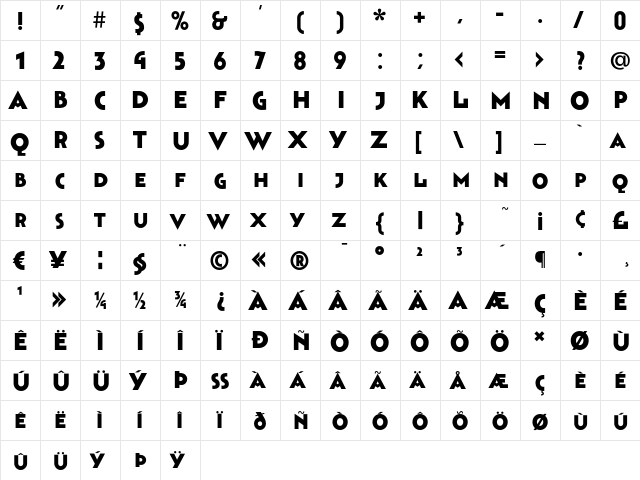
Bahnhof Black Black
| Foundry | Frantisek Storm, stormtype.com |
Design Context for Bahnhof Black Typeface
Bahnhof Black takes a measured approach to typography — its balanced proportions and neutral character make it a reliable workhorse for both digital and print work.